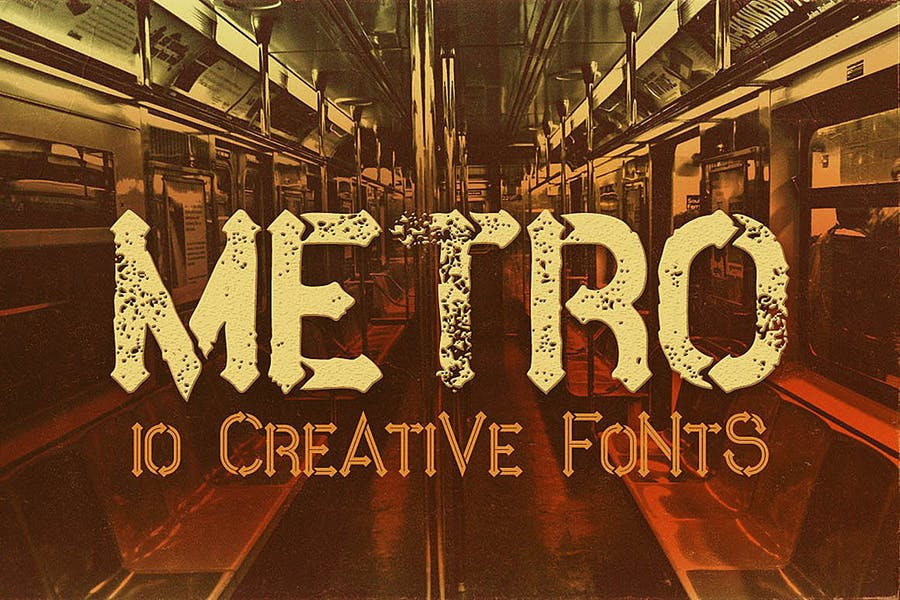
Metro - 10 Fonts Family
Metro - 10 Fonts Family is perfect for urban transit systems, modern city branding, metropolitan signage, contemporary corporate identities, sleek architectural presentations, public transportation materials, cosmopolitan lifestyle brands, progressive municipal communications, sophisticated wayfinding systems, and dynamic urban development projects.
Metro - 10 Fonts Family creates excitement because it embodies the energy and efficiency of modern metropolitan life with its comprehensive collection of urban-inspired letterforms and city-centric character design. The font family's systematic approach and metropolitan precision instantly convey organization and forward-thinking progress, making any brand appear sophisticated and professionally coordinated. Its carefully engineered urban details and comprehensive styling options create an immediate sense of metropolitan authority that captivates audiences seeking efficient solutions, urban sophistication, and products that celebrate the dynamic pulse of contemporary city living and metropolitan excellence.
The Metro - 10 Fonts Family includes ten distinct variations: Thin, Light, Regular, Medium, Bold, Black, Condensed, Extended, Display, and Underground versions. Each variant maintains the family's signature metropolitan character while offering different levels of urban intensity and city styling suitable for various municipal, corporate, and urban lifestyle applications.
This comprehensive typeface collection represents the ultimate toolkit for modern urban typography and metropolitan communication systems. Metro - 10 Fonts Family Free Download provides city planners and urban brands with access to premium metropolitan typography that embodies the essence of efficient city living and progressive urban design. The font family's systematic precision and urban authenticity make it ideal for organizations requiring comprehensive typography solutions that communicate metropolitan authority and inspire confidence in urban systems. Whether you're developing comprehensive transit identity systems, creating materials for city governments, designing signage for urban developments, or producing content for metropolitan service providers, this font family delivers the urban sophistication that resonates with city dwellers seeking efficient systems, metropolitan convenience, and the streamlined excellence of well-designed urban infrastructure. Its exceptional versatility ensures outstanding performance across massive municipal applications and detailed urban communications while maintaining perfect consistency and metropolitan character. The fonts excel in multilingual urban environments and cross-cultural city applications. Urban planning professionals appreciate the family's ability to convey metropolitan efficiency while remaining highly functional for various municipal communications and public service materials. The comprehensive character sets include urban symbols and extensive international language support, making it perfect for global cities and international metropolitan organizations seeking to communicate authentic urban sophistication, systematic efficiency, and metropolitan excellence to diverse worldwide urban populations who navigate complex city systems, embrace metropolitan living, and demand the highest standards of urban design and municipal service delivery that makes city life efficient, accessible, and truly metropolitan in every aspect.